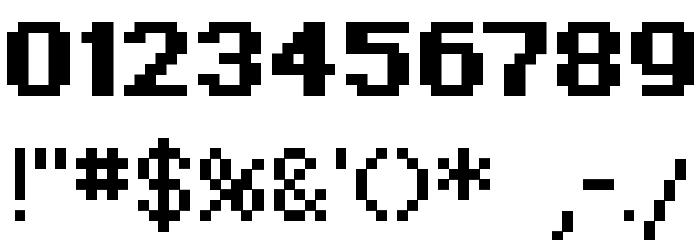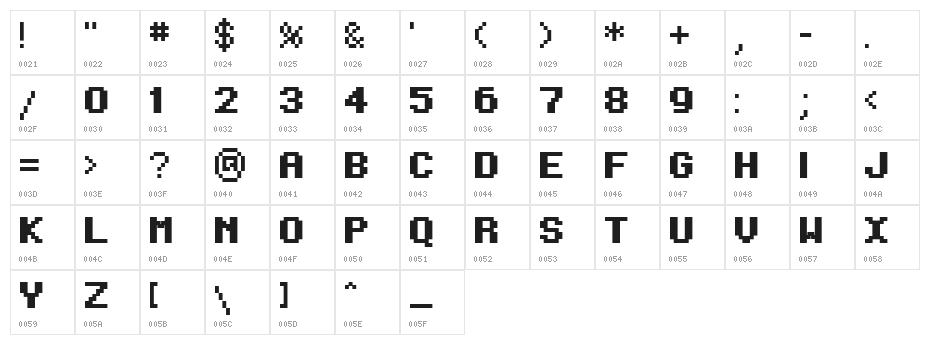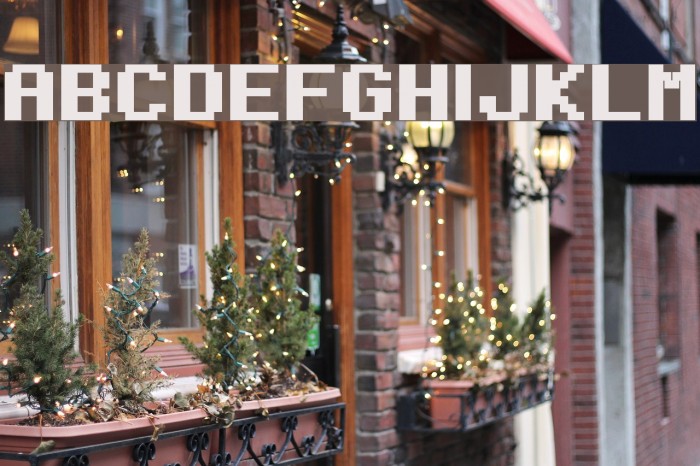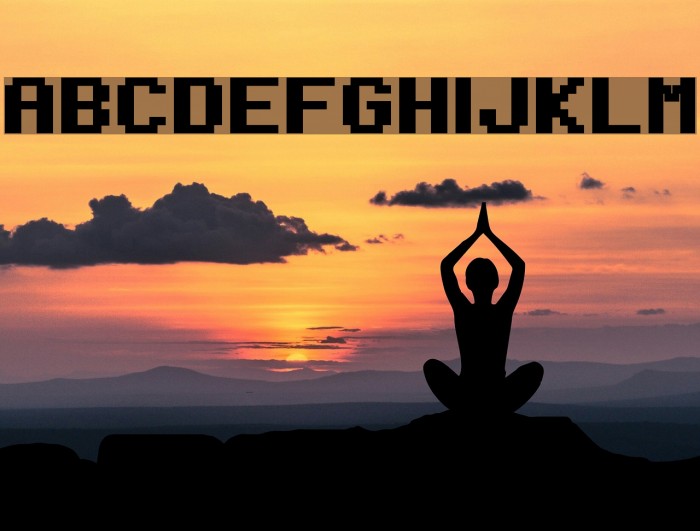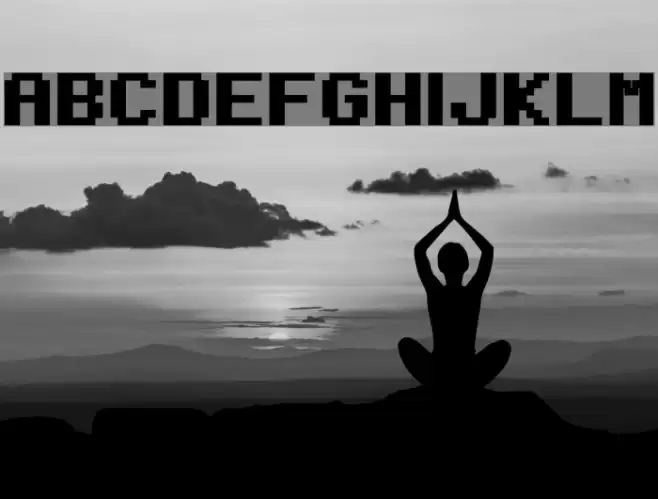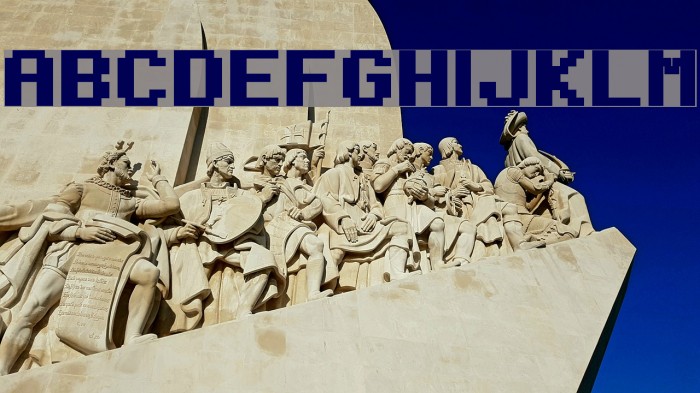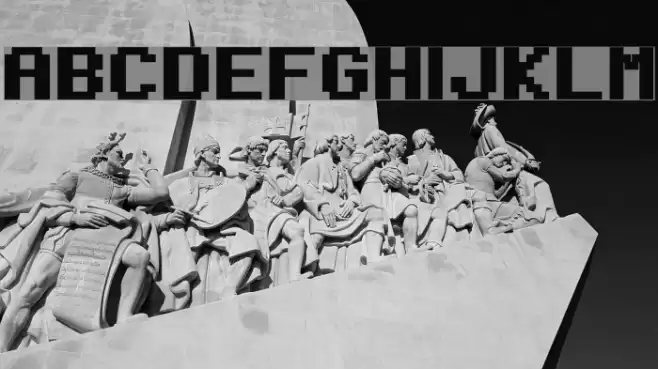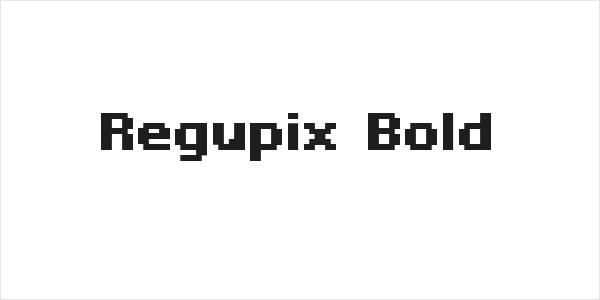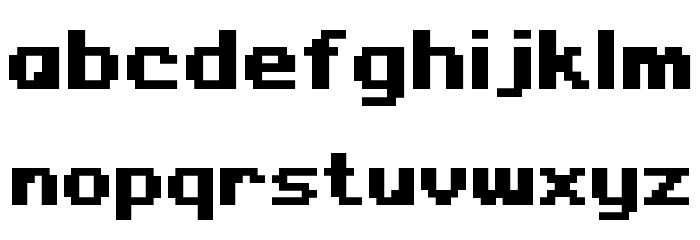
Regupix Bold Font
Regupix Bold Description
This font features a bold, pixelated design reminiscent of retro video games and digital displays. Each character is constructed with a blocky, grid-like appearance, giving it a distinct, tech-inspired aesthetic. The uppercase and lowercase letters maintain a consistent height, enhancing readability while preserving the pixel art style. Numbers and special characters follow the same design principles, ensuring uniformity across all glyphs. This font is ideal for projects that aim to evoke nostalgia or a digital theme, such as video game graphics, tech-related branding, or digital art projects.
Overall StyleRetro, Digital
Use CaseLogos, Headlines, Digital Art
Proposed ProjectsIdeal for video game graphics, tech branding, digital art, and retro-themed designs.